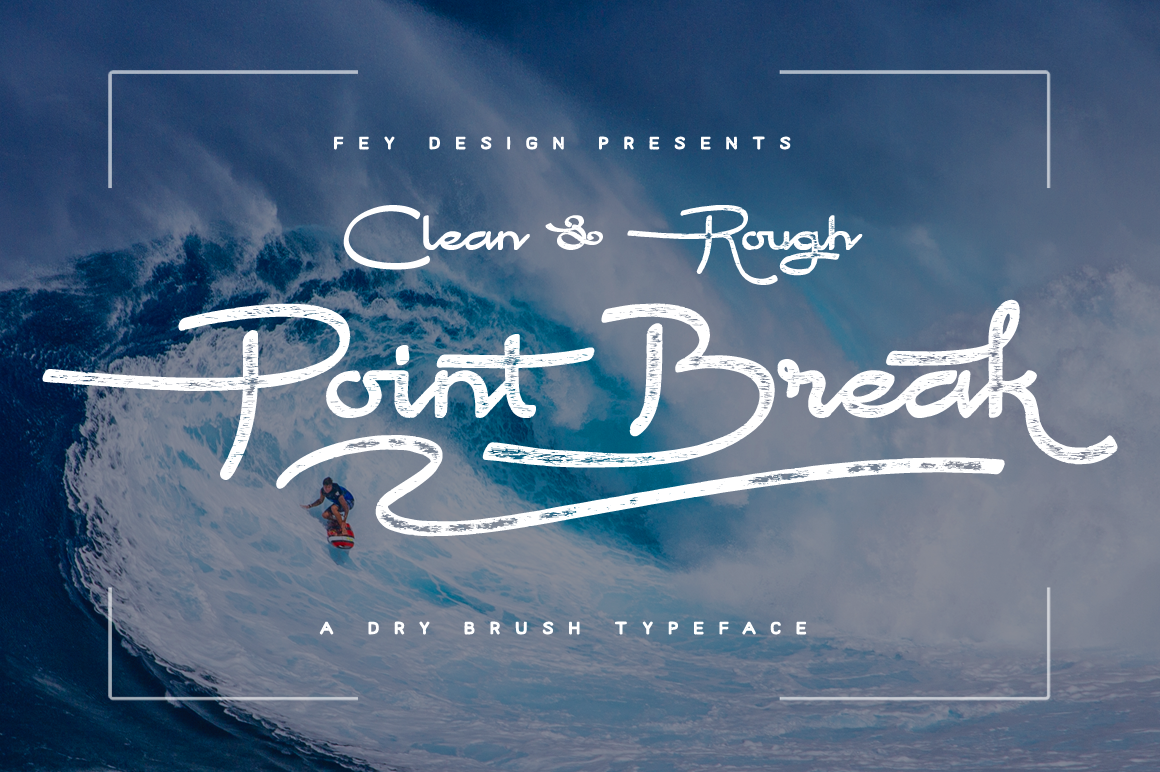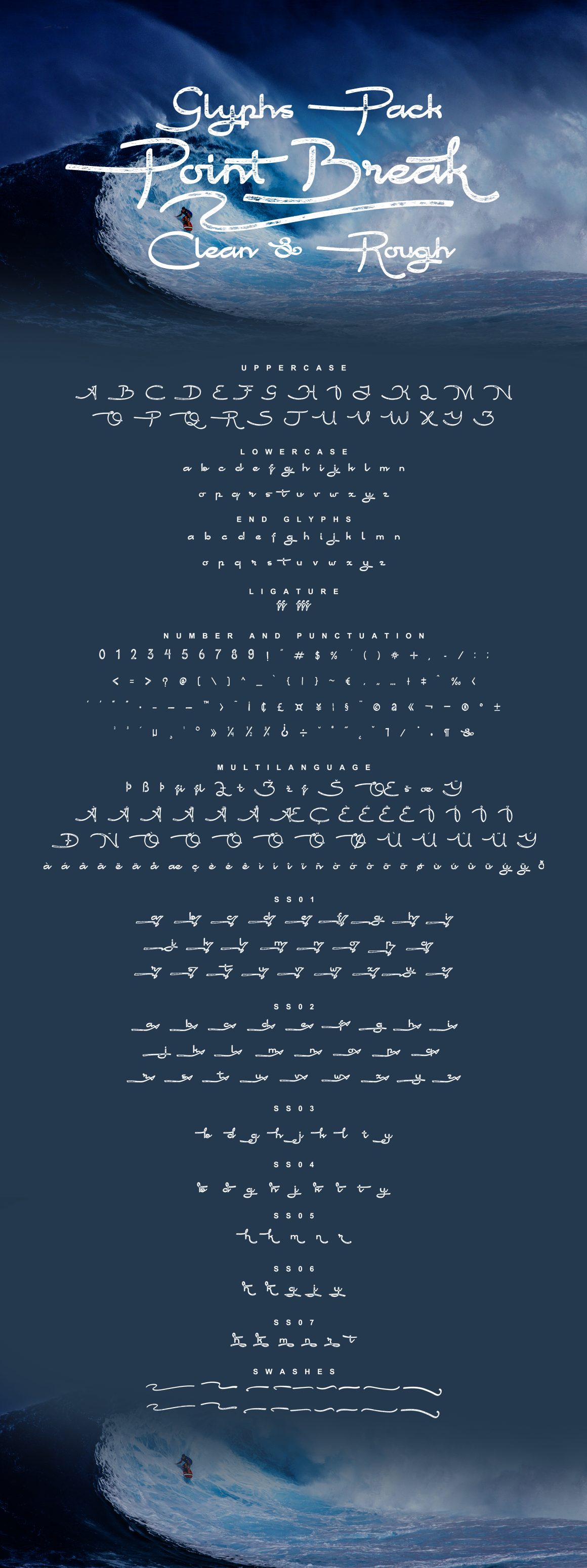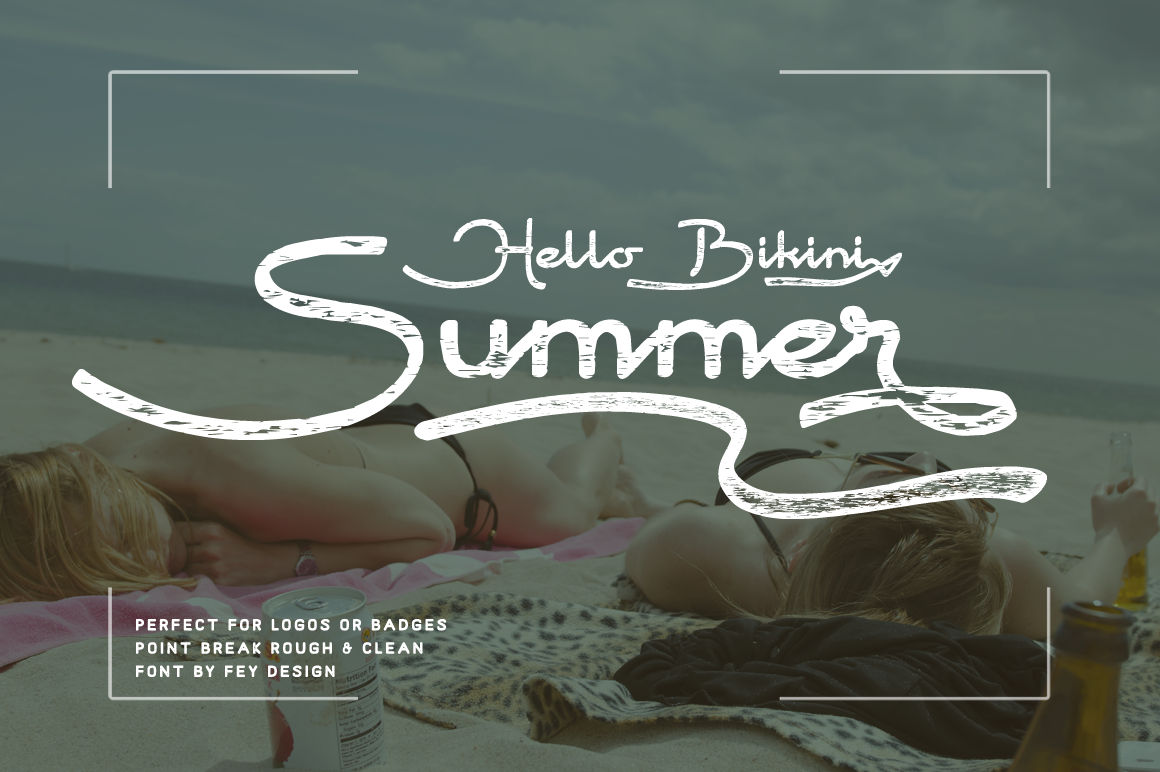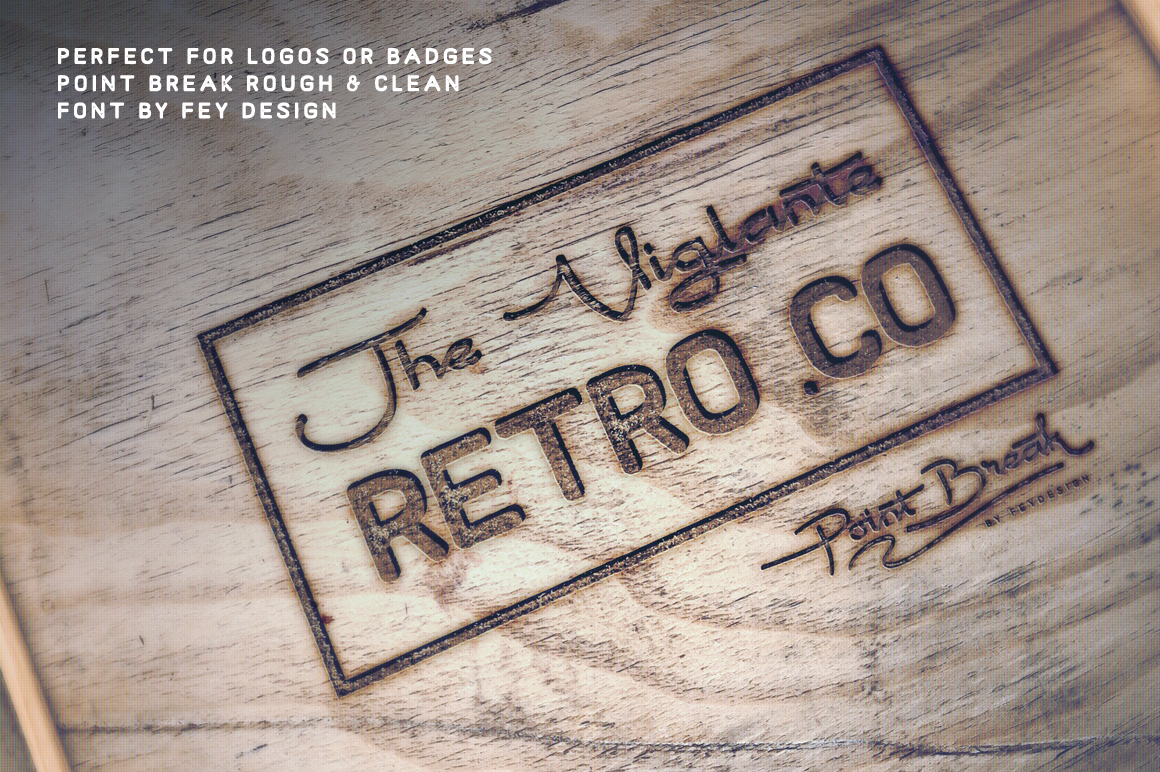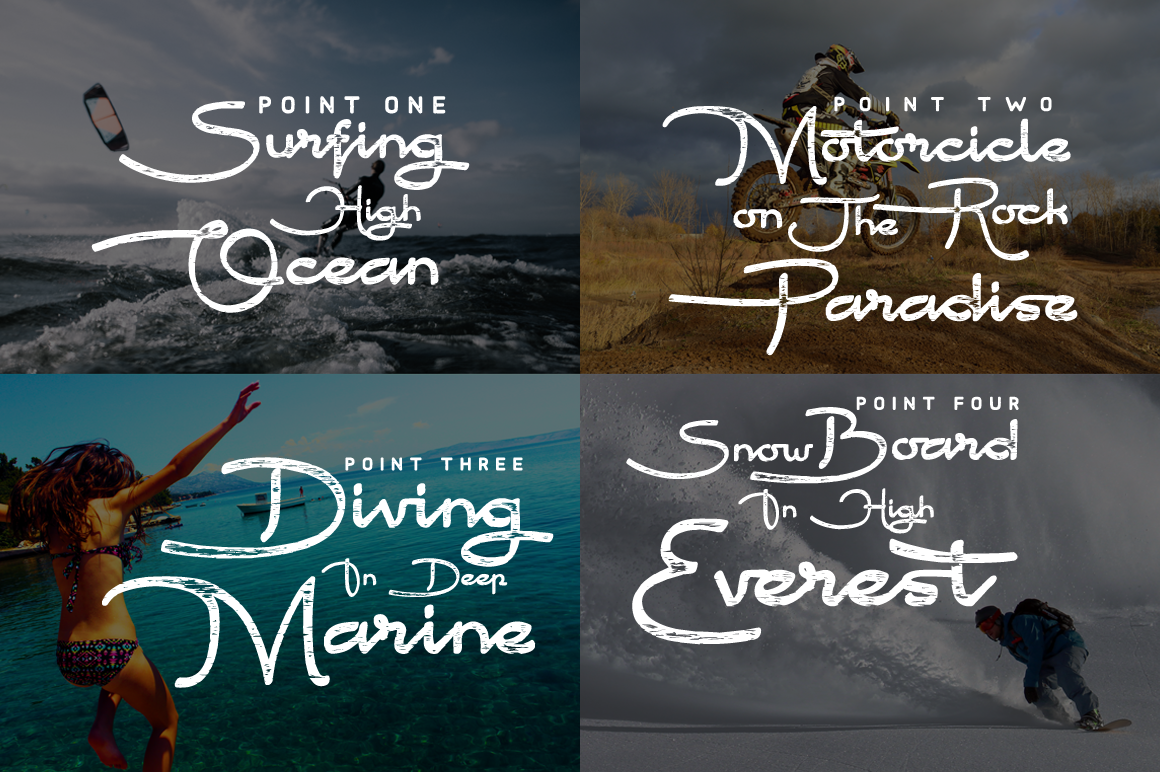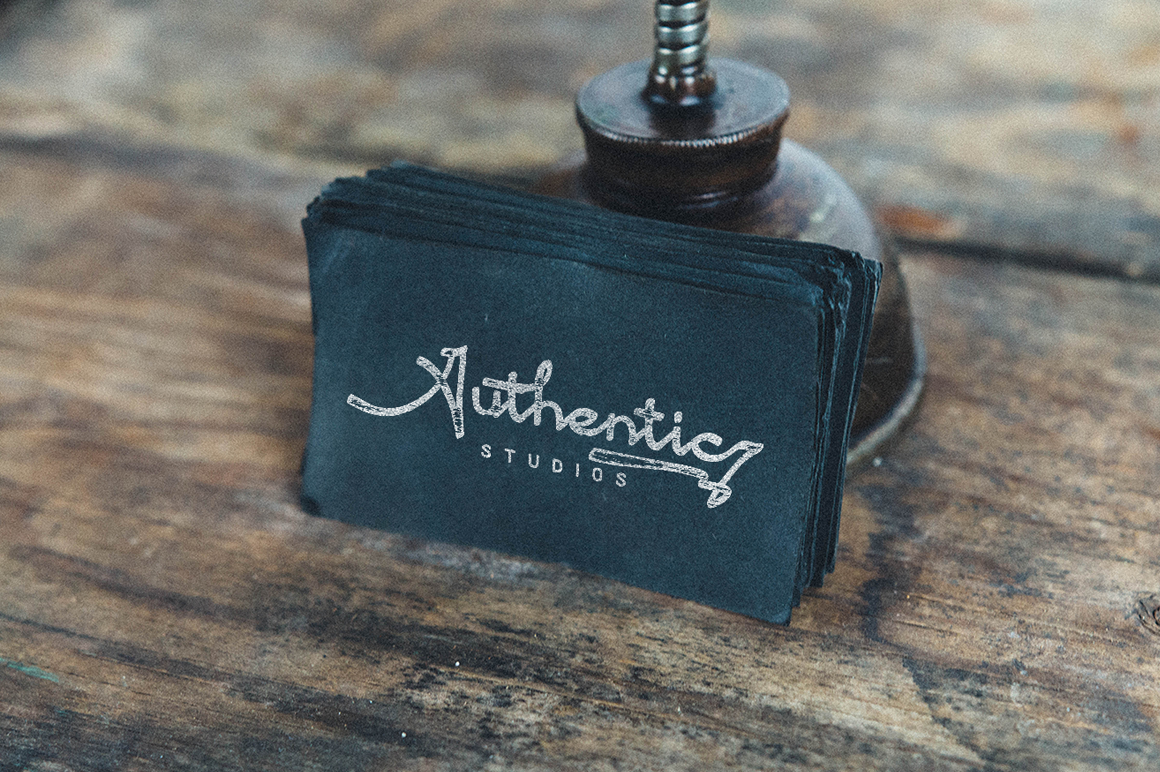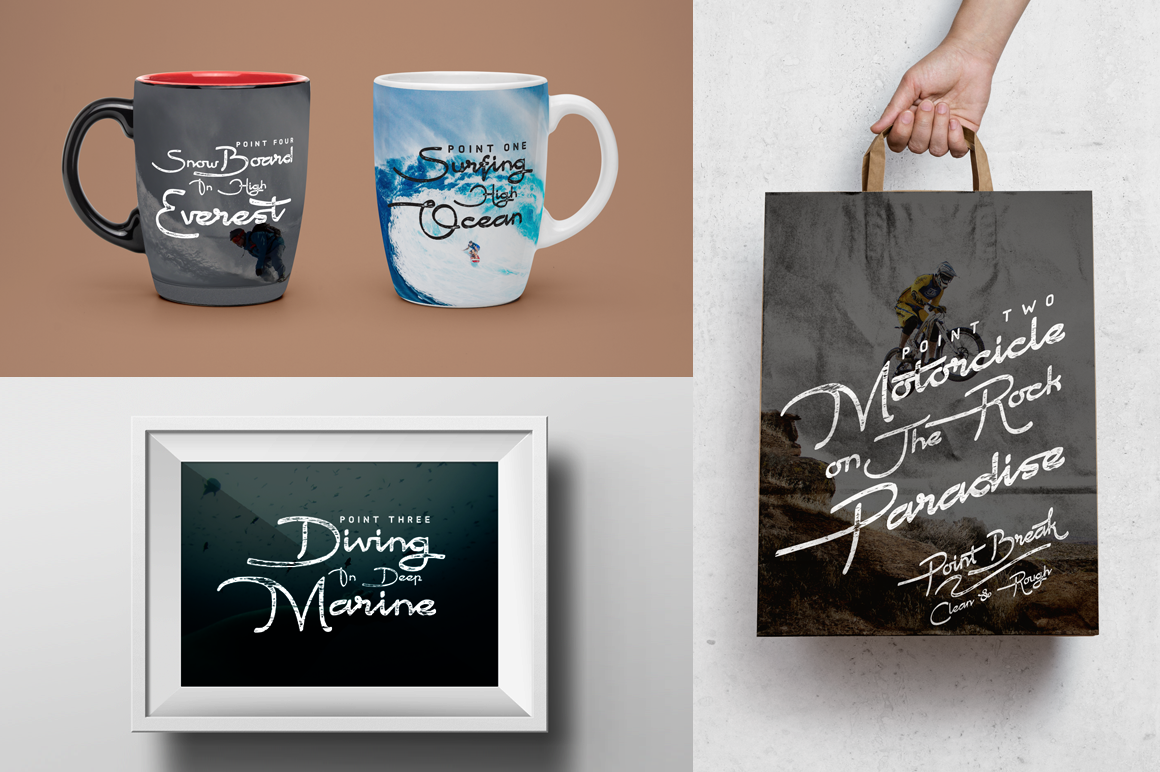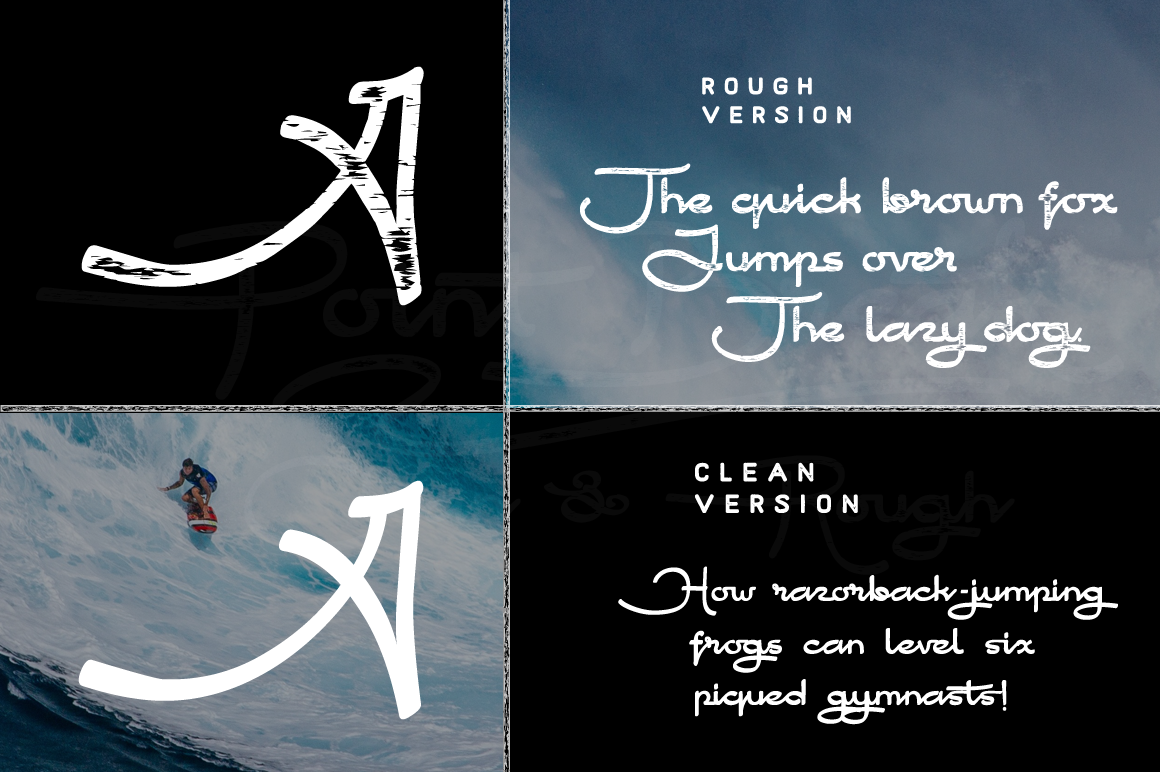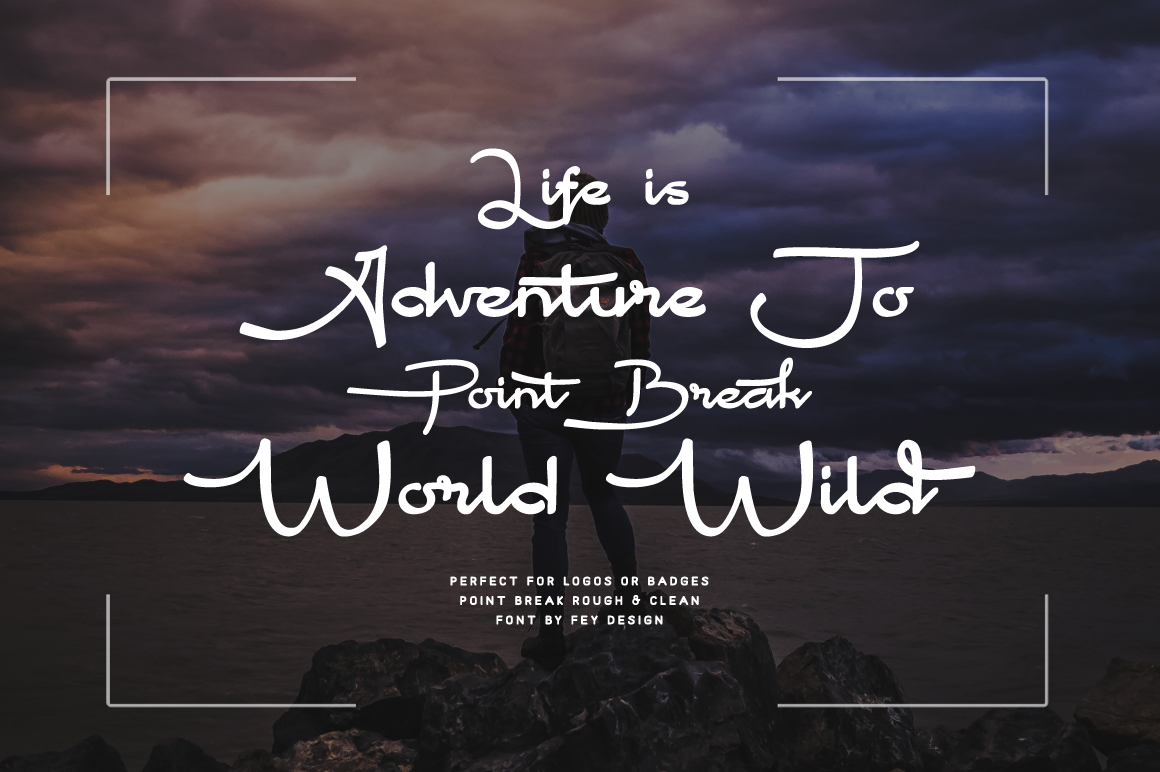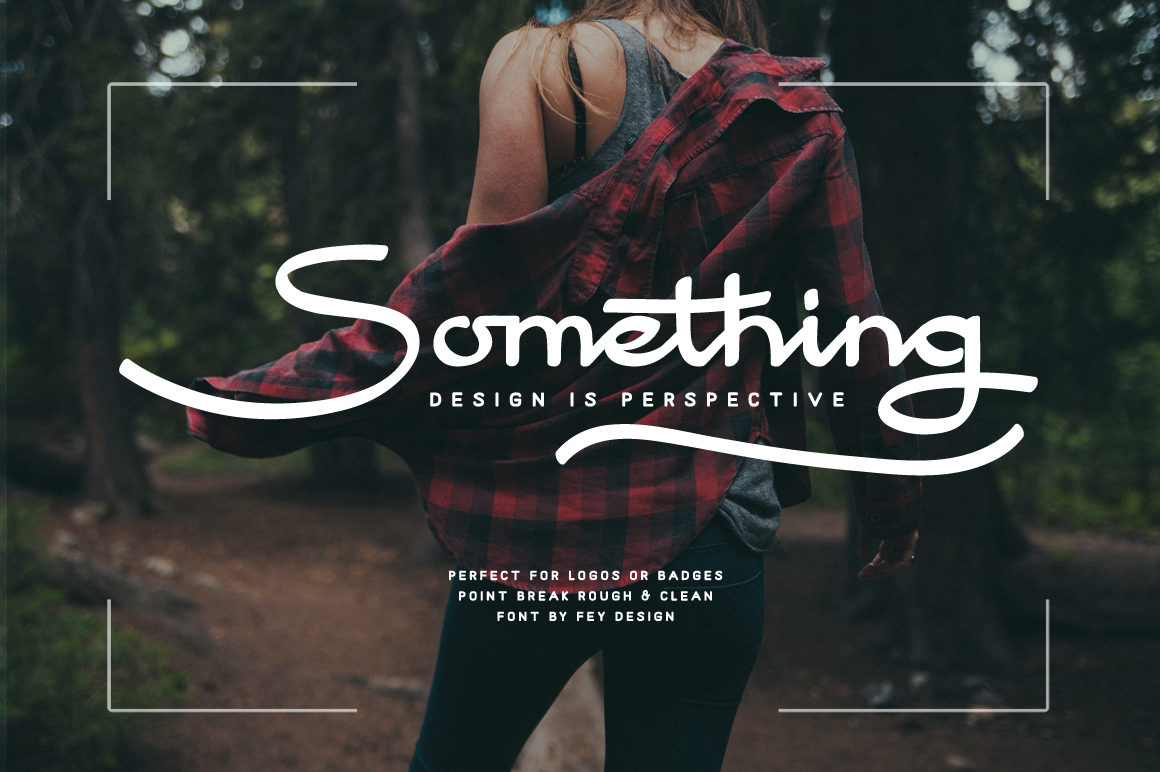
Point Break Font
Point Break Brush Font is an authentic calligraphy style with clean and rough options, making it useful for a wide range in both personal and commercial products.